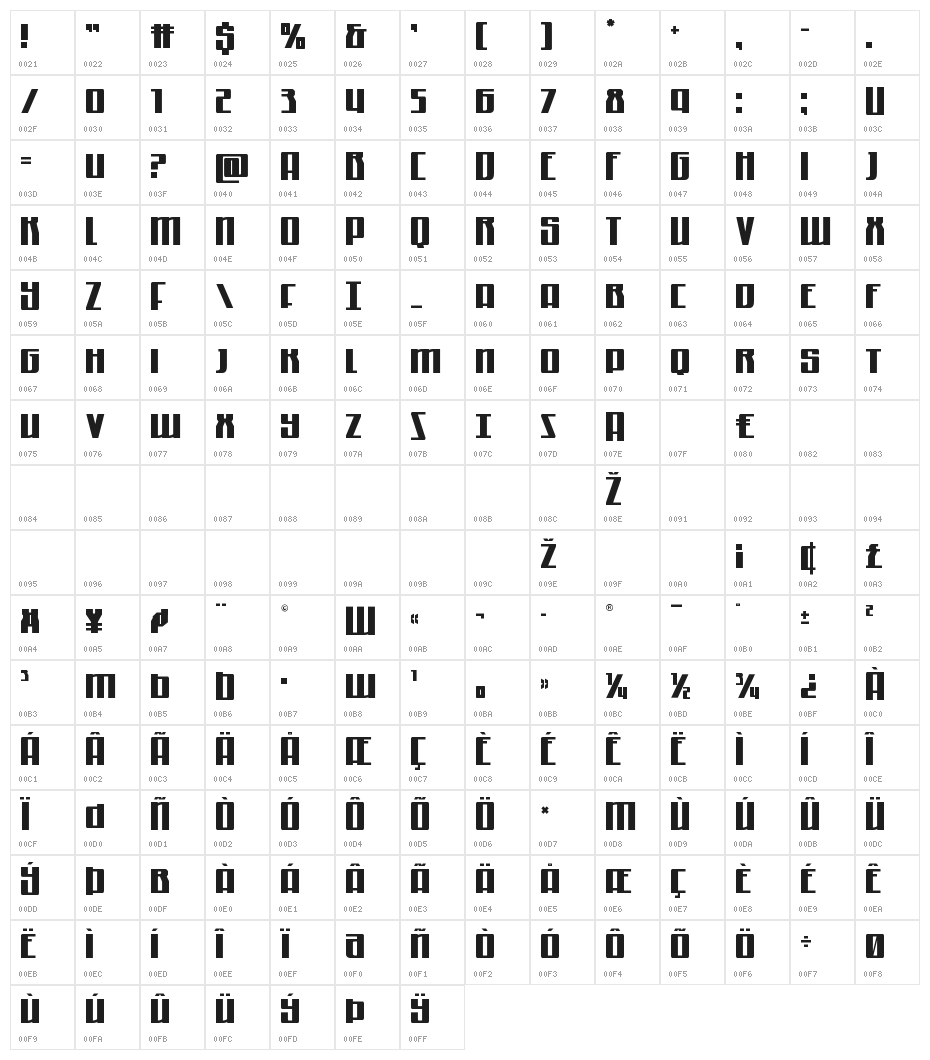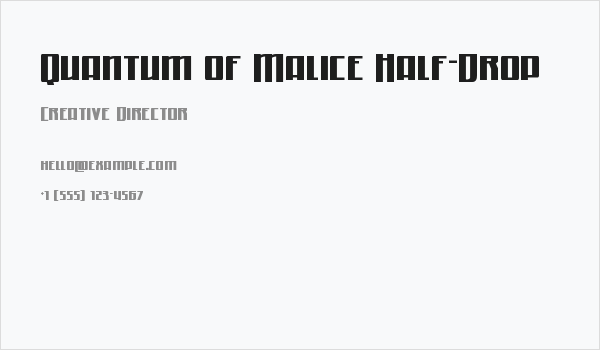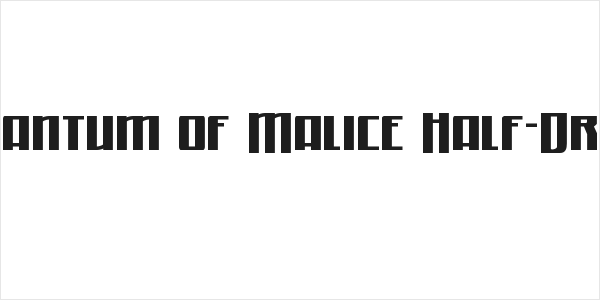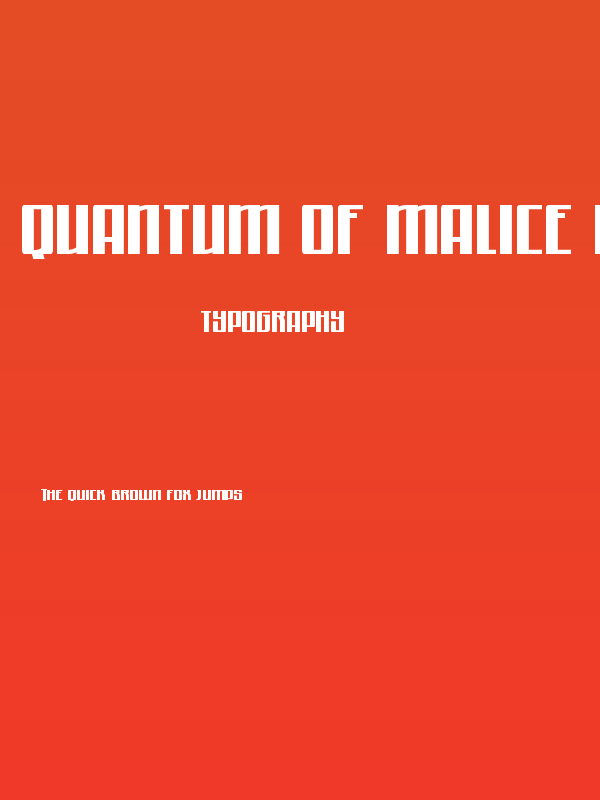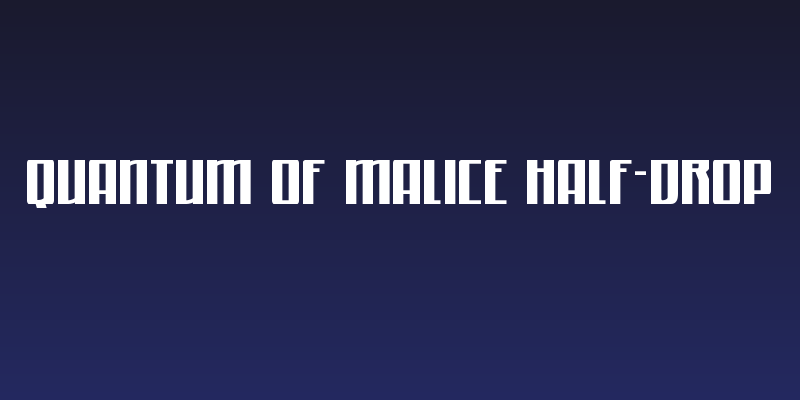
Quantum of Malice Half-Drop Font
Quantum of Malice Half-Drop Description
This font features a bold and striking design with a strong geometric structure. The characters are crafted with sharp angles and a consistent width, giving it a modern and assertive appearance. The uppercase letters are particularly distinctive, with a blocky and robust form that commands attention. The lowercase letters maintain the same boldness, ensuring readability while adding a touch of uniqueness. Numbers are equally bold, with a uniform height that aligns perfectly with the uppercase letters. Special characters are designed to match the overall aesthetic, providing a cohesive look across all text elements. This font is ideal for projects that require a strong visual impact and a contemporary feel.
| Proposed Projects | Ideal for branding, headlines, posters, and any design requiring a strong visual impact. |